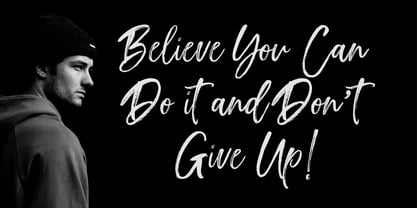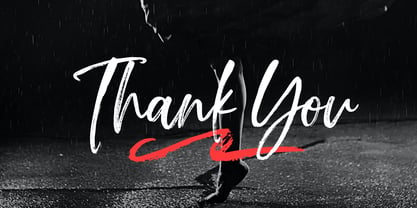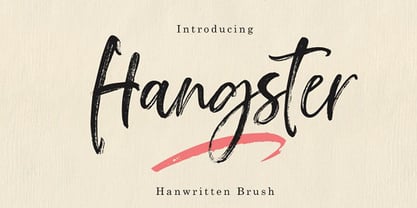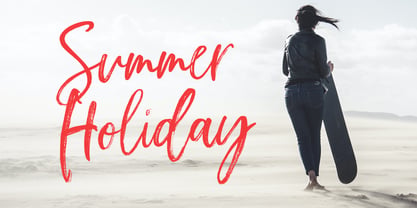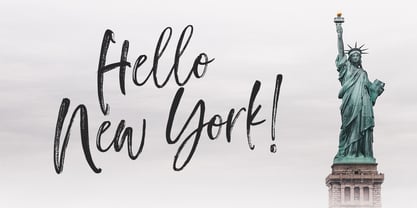
Hangster
by Sulthan Studio
Hangster Brush Script Font!
Hangster is inspired by the natural brush typeface. Written in rapid motion using a small dry brush pen. It will give
You design is fresh and modern and will look beautiful with offers, fashion magazines, offer logos, products
packaging, headers, posters, merchandise, social media greeting cards & more.
Hangster is equipped with uppercase and lowercase letters, uppercase and lowercase sets for international flights
machines, numbers, and languages that can be used for international languages. and also available separate Swashes
lowercase characters are also available